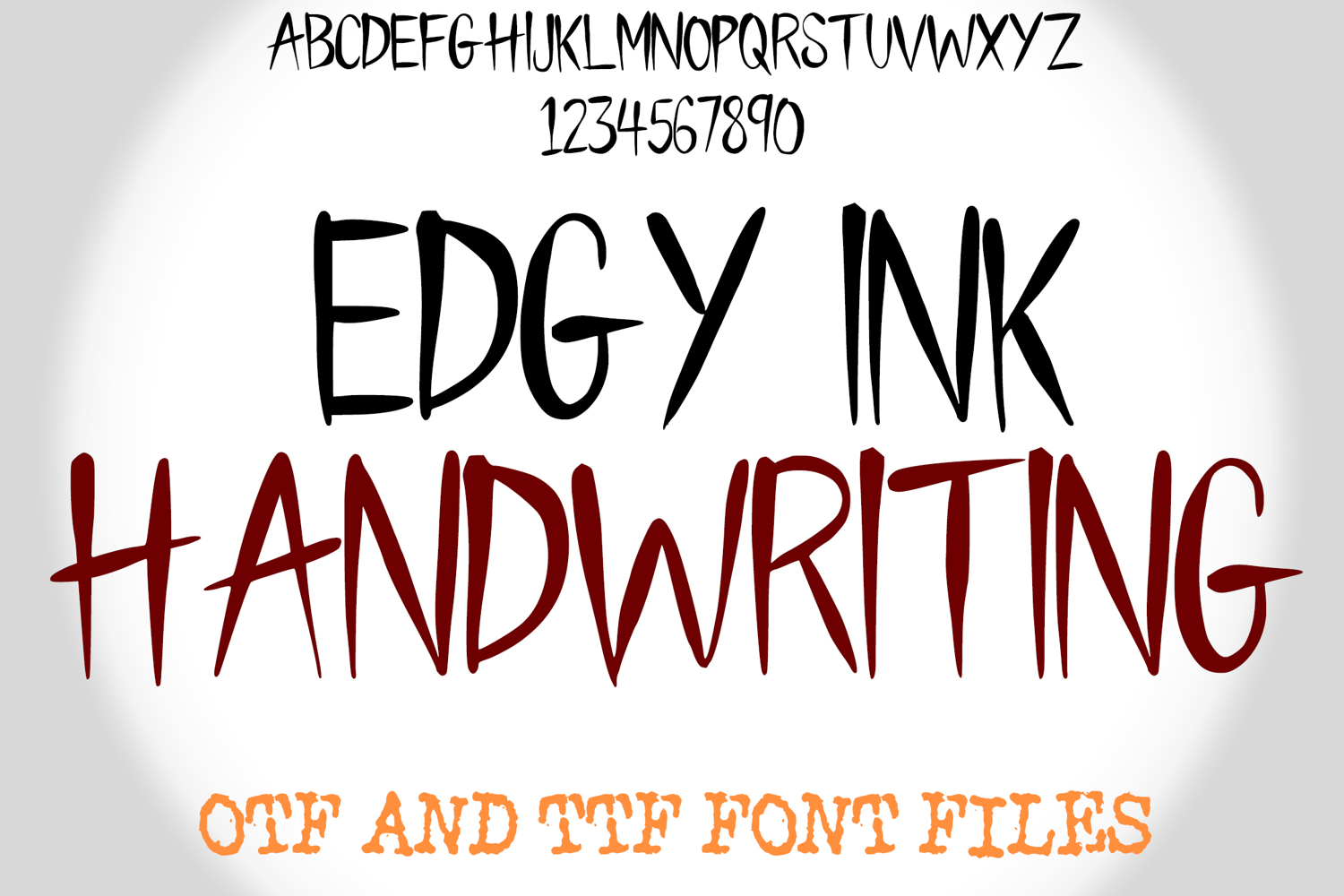
Edgy Ink Handwriting Lettering ABC Text Font Alphabet OTF Type Illustration
An inky style font where you can create your own words and colour them to your vision!